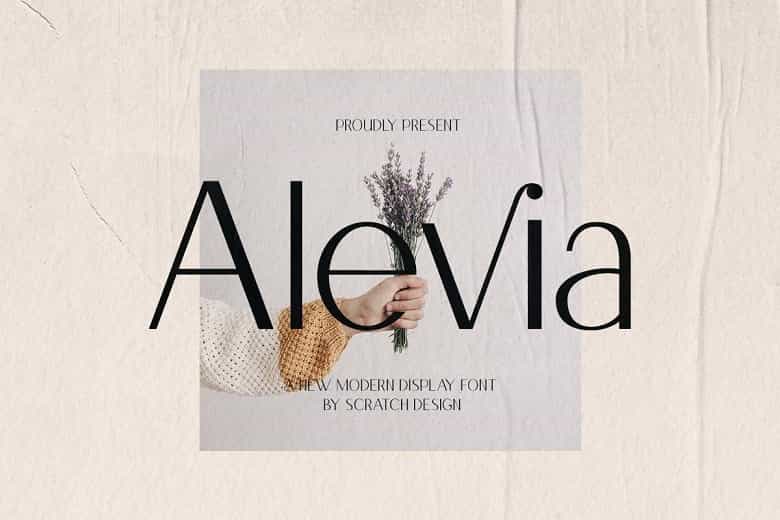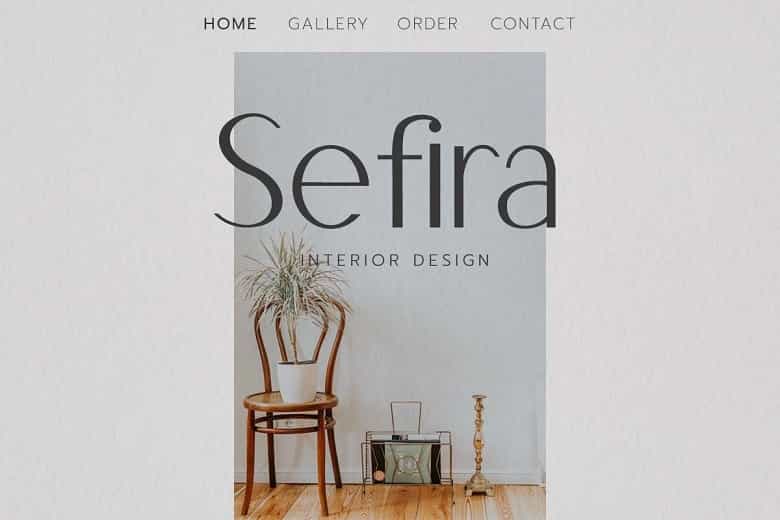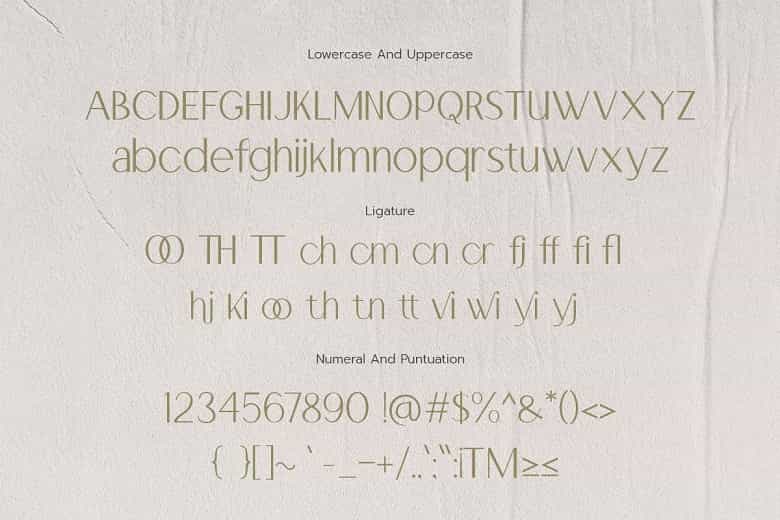
Alevia is a new display font with a contemporary design and a simple look. It has a style that is very mature, and classy. This beautiful font has been created to be used in any stylish and elegant project including branding, packaging, magazines, logos, social media, websites, headers, and more.